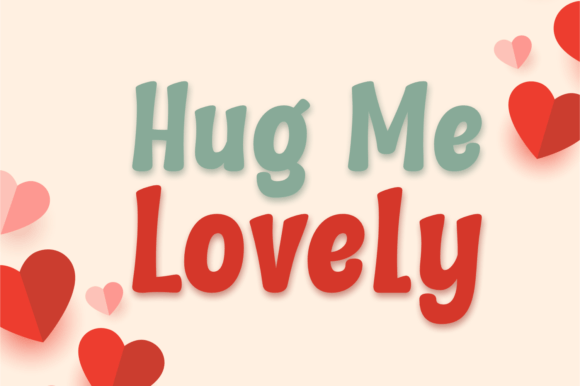
Introducing "Hug Me Lovely Font" - A Display Font That Exudes Joy and Warmth
Dive into the world of whimsical typography with Hug Me Lovely Font, a creation of Rian (7NTypes). This captivating display font radiates charm and positivity, making it the perfect choice for designers seeking to add a touch of delight to their projects.
With its playful curves and cheerful demeanor, Hug Me Lovely Font possesses a unique personality that brings life to any design. Its undeniable charm stems from its thoughtful design, which exudes warmth and happiness, inviting viewers to embrace the joy of creativity.
Whether you're crafting eye-catching labels, designing playful invitations, or creating enchanting posters, Hug Me Lovely Font is your go-to choice for injecting a burst of joy into your work. Unleash your imagination and let this font carry your message with a smile.